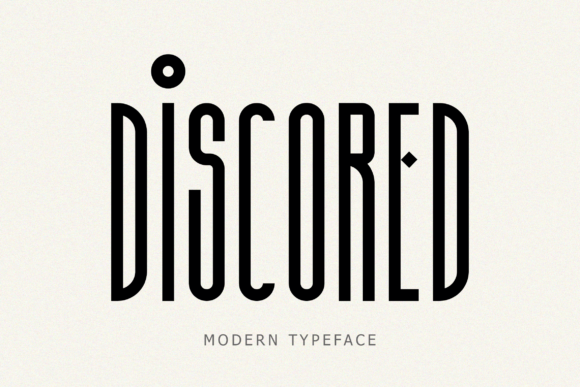
The Perfect Blend of Elegance and Legibility: Discored Font
Have you ever stared at a blank page, struggling to find the perfect font to bring your design to life? You know the feeling – it’s like trying to choose the right color for a sunset. One minute you’re convinced you’ve found the perfect shade, and the next, you’re second-guessing yourself. But what if I told you there’s a font that can make that process a whole lot easier?
Enter the Discored Font, a stunning sans serif typeface that’s as much a work of art as it is a tool for designers. Its well-balanced weight distribution and tall lettering make it the perfect choice for any project that requires a touch of sophistication. With carefully adjusted alternates and ligatures, the Discored Font is more than just a pretty face – it’s a valuable asset for designers looking to elevate their work.
Key Features of Discored Font
- Font Family: Discored is a sans-serif font family designed for digital use.
- Character Set: The font includes a wide range of characters, including Latin, Cyrillic, and Greek alphabets, as well as punctuation and symbols.
- Size: The font is available in 7 different weights, ranging from Light to Black, with corresponding italic and bold styles.
- Unique Characteristics: Discored features a distinctive, geometric design with clean lines and a modern aesthetic, making it ideal for use in digital products, such as apps, websites, and video games.
Discored Font Review
I’ve had the chance to work with Discored Font, and overall, I’d say it’s a solid choice for designers. Here are my thoughts:
- Discored Font has a unique, playful vibe that’s perfect for creative projects or brands that want to stand out.
- The font is highly customizable, allowing you to adjust the weight, spacing, and other settings to suit your design needs.
- The font is also quite versatile, working well for both digital and print projects.
- One of the main limitations of Discored Font is that it can be quite busy, which may make it difficult to read at small font sizes.
- The font also lacks a bold weight, which can make it harder to create clear hierarchies in your design.
- Lastly, the font’s OpenType features can be a bit finicky, which may require some trial and error to get right.
While Discored Font has its limitations, I think it’s a great choice for designers who want a unique, creative font. With a bit of tweaking and experimentation, you can get some amazing results. Just be aware of the potential issues and plan accordingly.
Discored Font: A Practical Application Guide
Discored Font is ideal for:
- Creative headings and titles
- Custom typography
- Presentations and documents that require a touch of elegance
Remember to always use Discored Font in moderation to avoid overwhelming your design.
Alternatives to Discored Font
Great Vibes is a modern, cursive script font that’s perfect for adding a touch of elegance and sophistication to your designs. It’s great for titles, headings, and any text that needs a bit of flair. Great Vibes is a more playful and whimsical alternative to Discored Font, which is more geometric and futuristic.
Pacifico is a beautiful, handwritten font that’s reminiscent of the carefree spirit of the Pacific Ocean. It’s perfect for designs that need a relaxed, beachy vibe. Pacifico is a more casual and laid-back alternative to Discored Font, which is more formal and modern.
Carolyna Pro is a modern, script font that’s perfect for designs that need a touch of luxury and sophistication. It’s great for titles, headings, and any text that needs a bit of glamour. Carolyna Pro is a more elegant and refined alternative to Discored Font, which is more geometric and futuristic.
Can I use Discored Font in combination with other fonts, and if so, how do I do it?
Yes, Discored Font can be used in combination with other fonts. In fact, it’s often used in conjunction with sans-serif fonts like Open Sans or Lato to create a clean and modern visual style. To use Discored Font with other fonts, simply apply the font styles and sizes as needed, and make sure to use a consistent